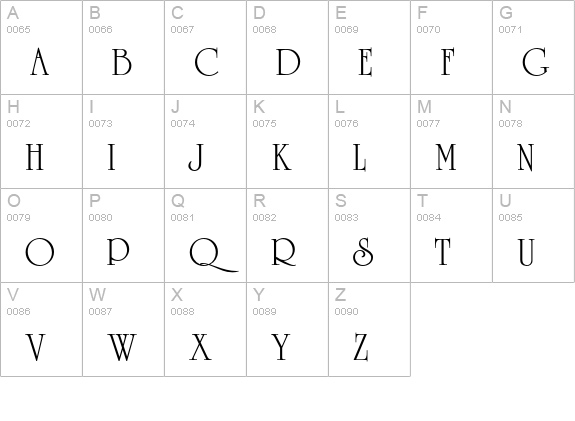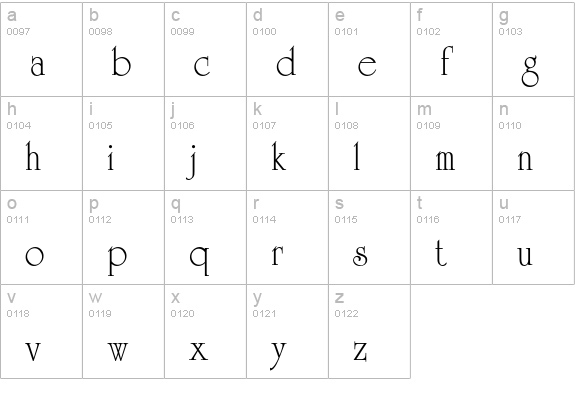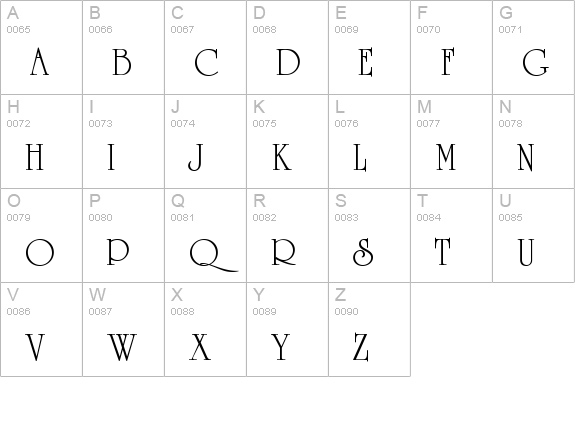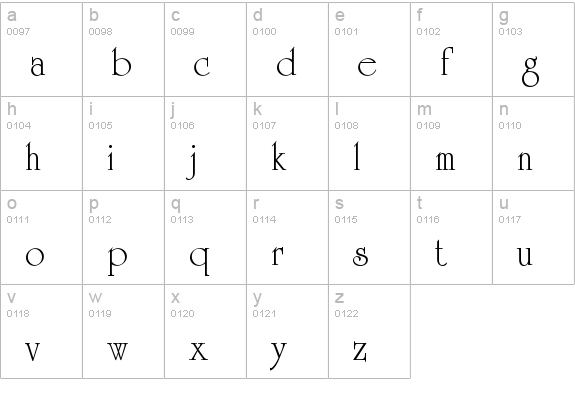
Introducing the University Std Roman font, a timeless typeface that exudes sophistication and elegance. With its clean lines and classic design, this font is perfect for any project that requires a touch of refinement. What sets University Std Roman apart from other fonts is its incredible versatility. Whether you're designing a logo, creating a website, or crafting a professional document, this font will elevate your work to new heights. Its evenly spaced characters and balanced proportions ensure legibility and readability, making it ideal for both print and digital applications. One of the best things about University Std Roman is that it is completely free. Yes, you read that right – this high-quality font is freely available to download at FontsMarket.com. No need to worry about breaking the bank or going through complicated licensing processes. Simply head over to FontsMarket.com, find the University Std Roman font, and start incorporating it into your designs today. But don't let the fact that it's free fool you – University Std Roman delivers exceptional quality. Developed by experienced typographers, this font has undergone meticulous attention to detail to ensure optimal performance across various platforms and devices. The clean, elegant lines of University Std Roman make it a popular choice among graphic designers, branding experts, and typographic enthusiasts. Its timeless appeal and versatility make it suitable for a wide range of applications, from luxury branding to editorial design. So why wait? Take advantage of this incredible opportunity to enhance your designs with the University Std Roman font. Download it for free at FontsMarket.com and experience the difference that this exceptional font can make in your projects. Elevate your typography game and make a lasting impression with University Std Roman.